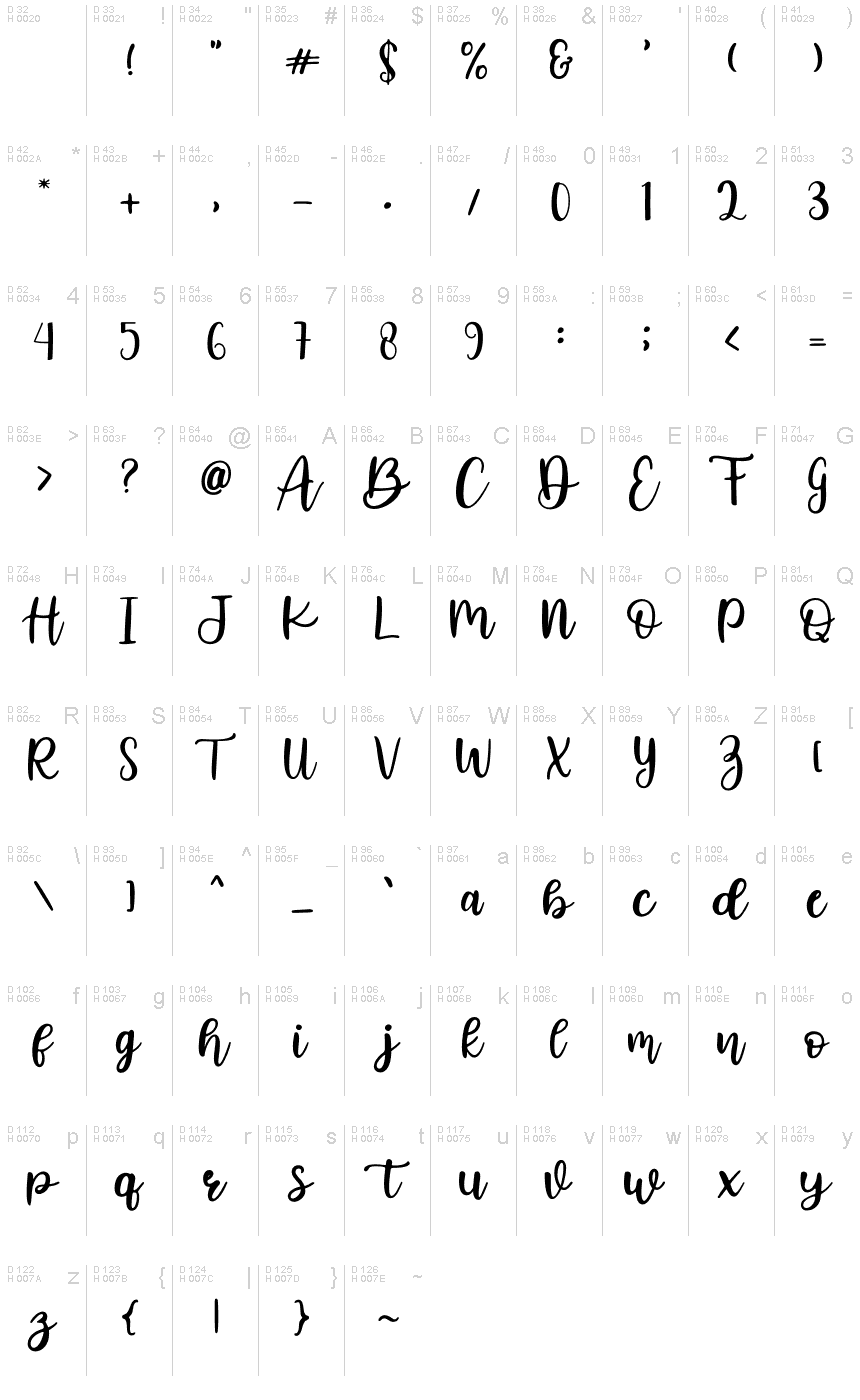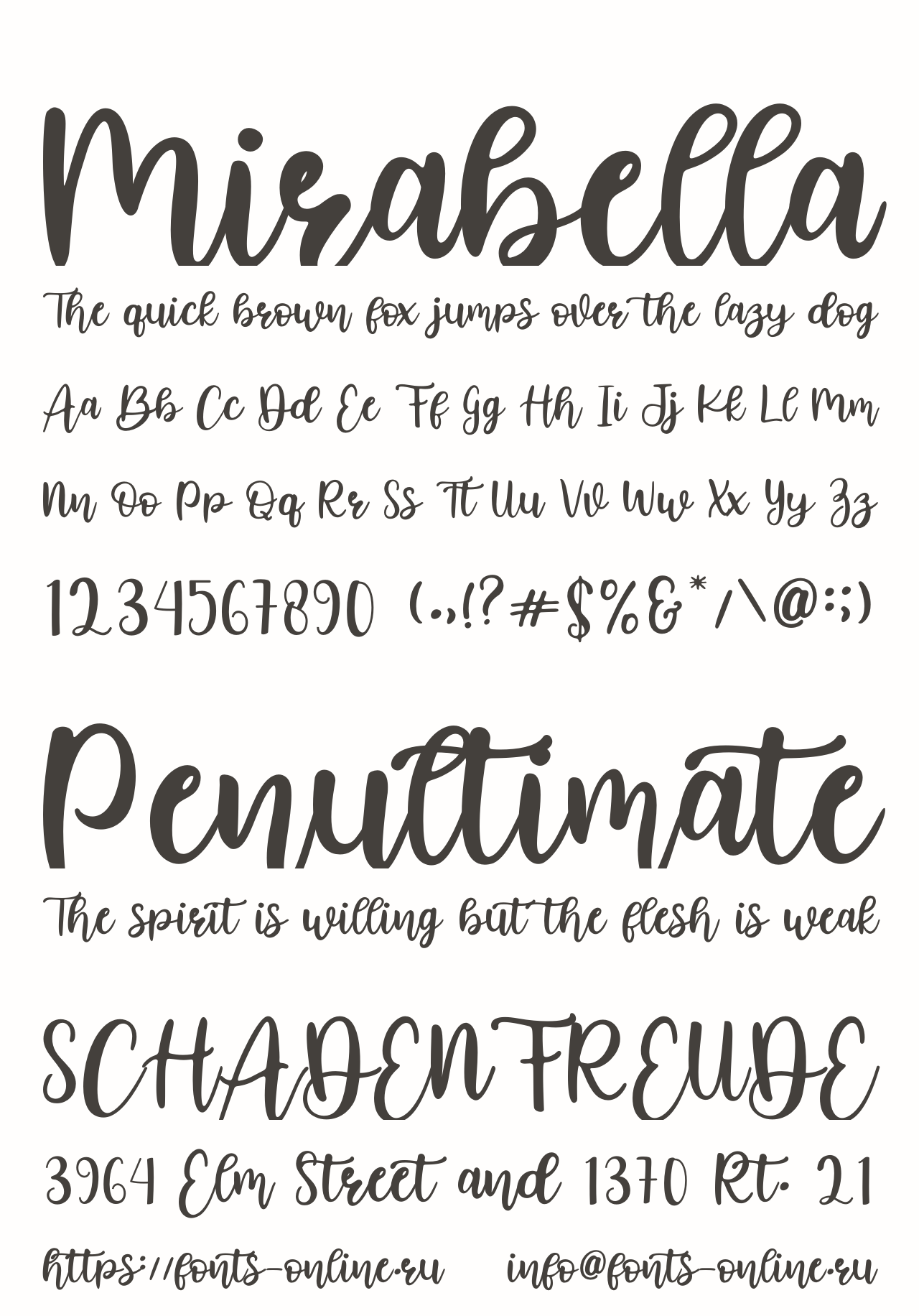
Mirabella Script Free Font
Mirabella Font The mirabella script is a new hand scripted typeface. This font is ideal for branding and decorate your any project, are perfect for wedding invitation or your blog. 48,990 downloads (1 yesterday) 2 comments free for personal use. The mirabella script is a new hand scripted typeface. 5,627 downloads (3 yesterday) free for personal use. Click now to create a custom image with your own words that you can download. Mirrabella à € by pollem studio. This font is partial and free for personal use only. Link to purchase full version and. Available for both personal and commercial use. Download and use the mirabella script for anything and everything. Free download of mirabella font. The font is available in all formats (mirabella woff2, mirabella woff, mirabella ttf, mirabella eot) and applicable to the website, photoshop and. Download mirabella font · free for personal use · this demo font is for personal use only!